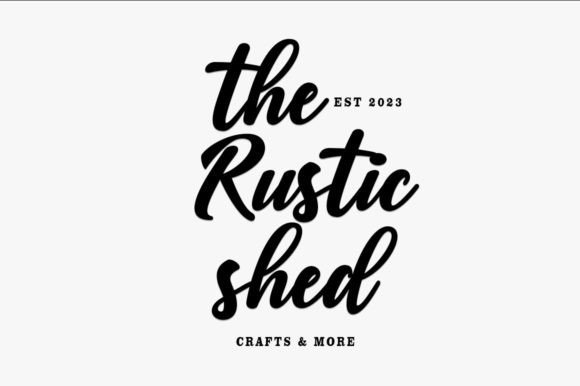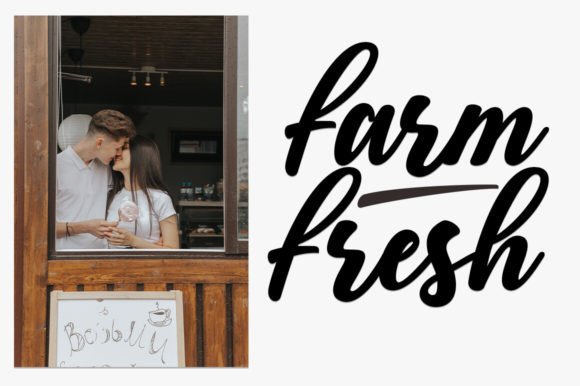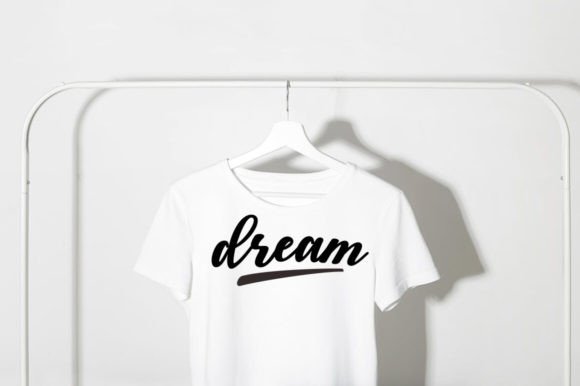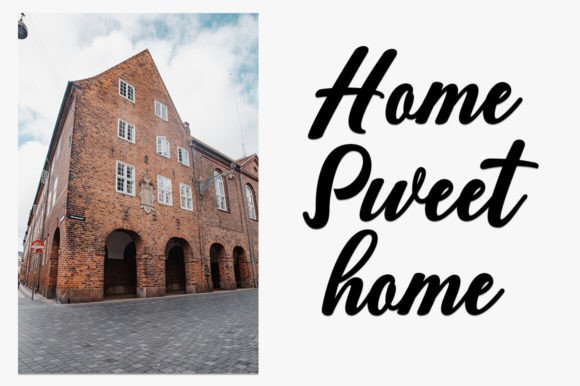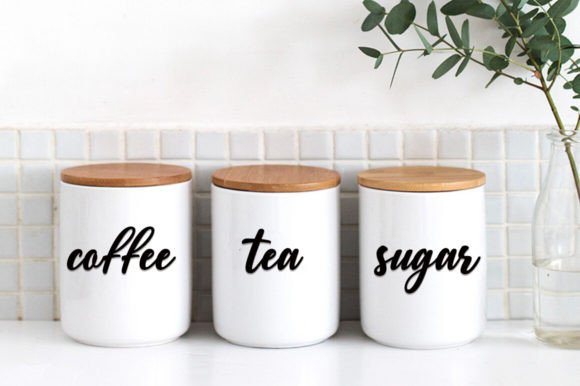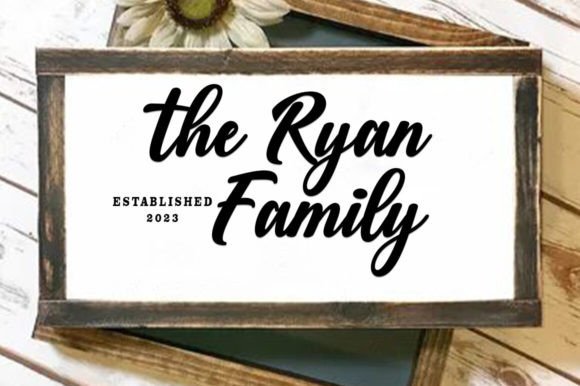
Bentos Script Font: Elevate Your Designs with this Beautiful Handwritten Script
Are you looking for a unique and expressive font to take your designs to the next level? Look no further than the Bentos Script Font! This stunning handwritten script is packed with OpenType features that will make your designs stand out from the crowd. In this article, we’ll dive into the world of Bentos Script and explore its features, uses, and benefits for designers and crafters.
What is Bentos Script Font?
Bentos Script Font is a beautiful handwritten script that boasts a range of OpenType features, including stylistic alternates, contextual alternates, ligatures, and more. These features allow you to customize the font to suit your design needs, giving you endless possibilities for creative expression. The bold lettering makes it perfect for creating eye-catching designs that demand attention.
Key Features of Bentos Script Font
• OpenType Features: Bentos Script Font comes with a range of OpenType features, including stylistic alternates, contextual alternates, ligatures, and more. These features allow you to customize the font to suit your design needs.
• Handwritten Script: The font has a beautiful handwritten script style that adds a personal touch to your designs.
• Bold Lettering: The bold lettering makes it perfect for creating eye-catching designs that demand attention.
• Versatile: Bentos Script Font is suitable for a wide range of design applications, including logos, letterhead, apparel, labels, headlines, and more.
Uses of Bentos Script Font
Bentos Script Font is a versatile font that can be used in a variety of design applications. Here are some ideas to get you started:
• Logos: Create a unique and memorable logo for your business or brand with Bentos Script Font.
• Letterhead: Add a personal touch to your letterhead with this beautiful handwritten script.
• Apparel: Design eye-catching t-shirts, hoodies, and other apparel with Bentos Script Font.
• Labels: Create custom labels for your products or gifts with this lovely font.
• Headlines: Use Bentos Script Font to create attention-grabbing headlines for your blog posts, articles, or social media graphics.
Benefits of Using Bentos Script Font
So why should you choose Bentos Script Font for your designs? Here are just a few benefits:
• Unique and Expressive: Bentos Script Font is a one-of-a-kind font that will add a unique touch to your designs.
• Customizable: With its range of OpenType features, you can customize the font to suit your design needs.
• Easy to Read: Despite its bold and expressive style, Bentos Script Font is easy to read, making it perfect for body text and headlines.
In conclusion, Bentos Script Font is a beautiful handwritten script that is sure to elevate your designs to the next level. With its range of OpenType features, bold lettering, and versatility, it’s perfect for a wide range of design applications. Whether you’re a designer, crafter, or DIY enthusiast, Bentos Script Font is a must-have addition to your toolkit. So why wait? Download Bentos Script Font today and start creating stunning designs that demand attention!